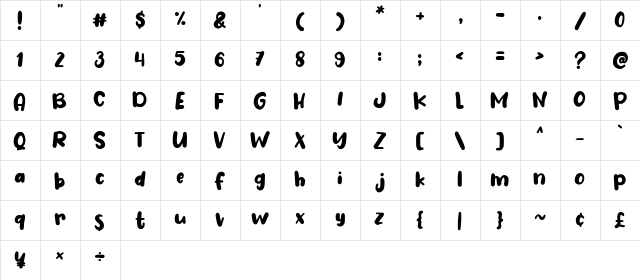
Wash Your Hand Regular
Design Context for Wash Your Hand Typeface
Wash Your Hand flows with the natural rhythm of handwritten lettering, making it ideal for designs that call for warmth and personal expression.
Font Pairing: Combine Wash Your Hand with a simple geometric sans for maximum contrast — the tension between flowing curves and clean structure is a classic typographic pairing.
Pro Tip: Use Wash Your Hand for short runs of text — names, titles, or taglines. Extended body copy in script faces tires the eye quickly.